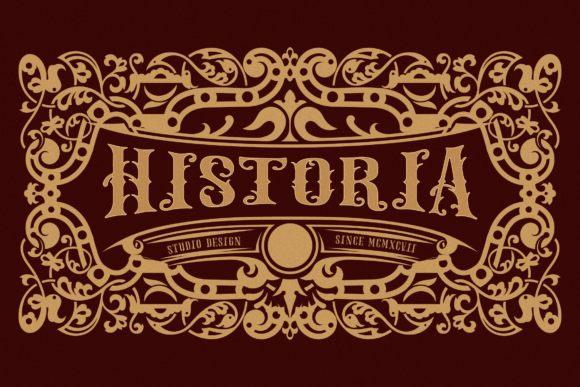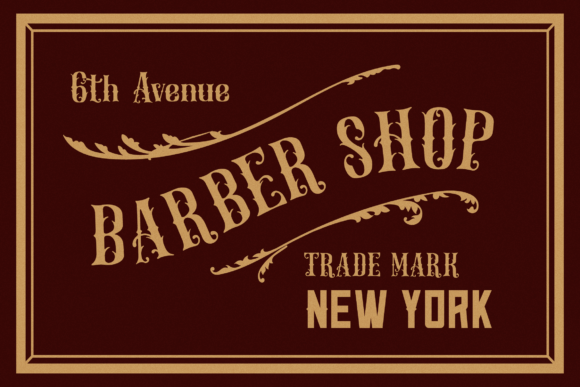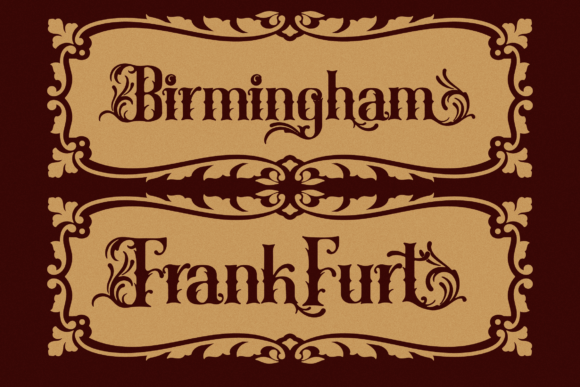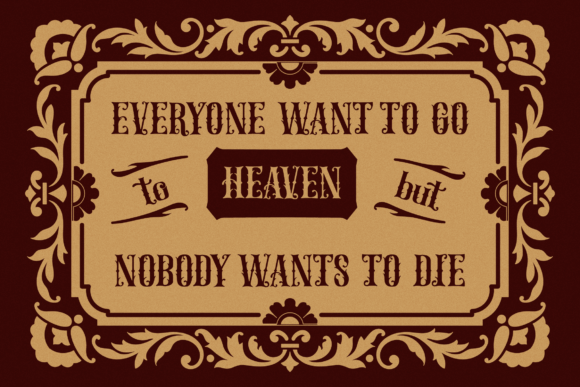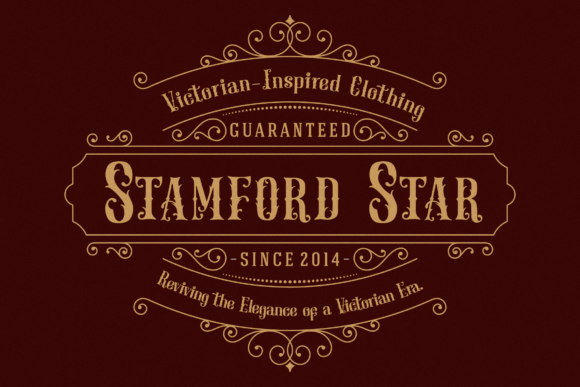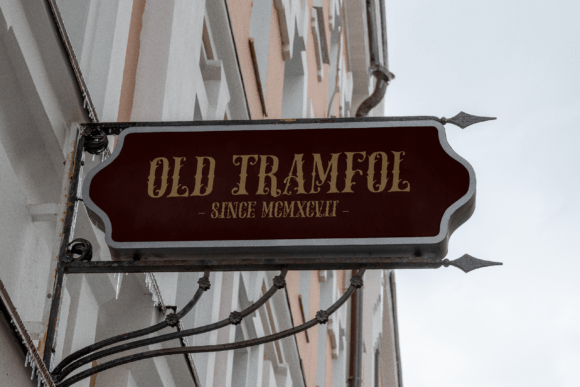
Discover the Timeless Elegance of Belion Radego Font
Have you ever stumbled upon an old, forgotten book in a dusty attic, and as you open its yellowed pages, the intricate typography transports you to a bygone era? That’s the magic of the Belion Radego Font, a stunning Victorian typeface that captures the essence of classic design. With its ornate details and flowing flourishes, this font is a design resource that can elevate any creative project to new heights.
Whether you’re working on a luxury packaging design or a historical-themed poster, the Belion Radego Font is an essential tool in your arsenal. Its versatility and customizability make it a valuable asset for designers, allowing you to create unique and captivating visual experiences. And the best part? This high-quality font is available for free download, making it an accessible design resource for creatives of all levels.
- High-quality, professional design resource ideal for creative projects, offering a unique and elegant style.
- Available in 1 style with 1 weight, making it easy to incorporate into your design without overwhelming options.
- Designed to be highly legible and visually appealing, with a resolution of 1024 x 1024 pixels.
- Perfect for use in digital design, print media, and web development projects, including logos, branding, and typography.
I recently came across the Belion Radego Font and was excited to give it a try in my creative project. As a designer, I’m always on the lookout for high-quality design resources that can elevate my work.
- Unique design aesthetic: The Belion Radego Font has a distinctive and modern look that sets it apart from more traditional fonts.
- Limited font styles: While the font has a unique look, it’s a bit limited in terms of available font styles.
- No bold or italic options: If you need to emphasize text in your design, you may find that this font doesn’t offer enough options.
Overall, I think the Belion Radego Font is a solid choice for designers looking for a modern and unique design resource. While it may have some limitations, its high-quality graphics and transparent background make it a great addition to any creative project.
- Creating visually appealing titles and headings.
- Designing logos and branding materials.
- Adding a touch of elegance to presentations and documents.